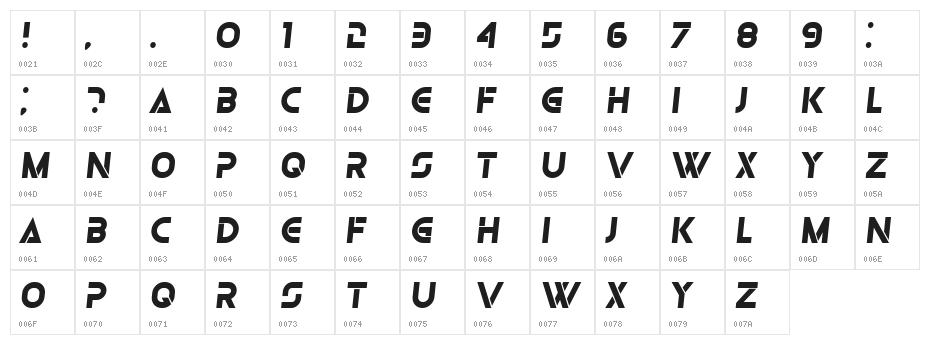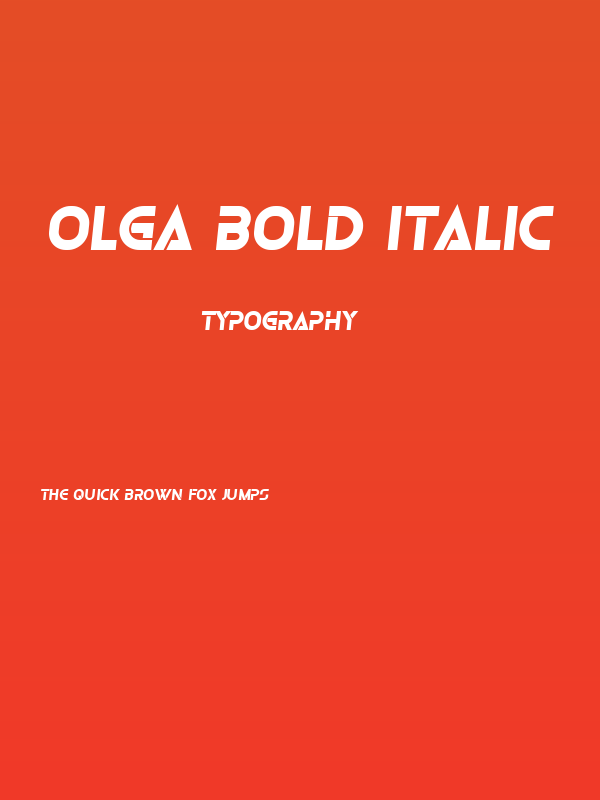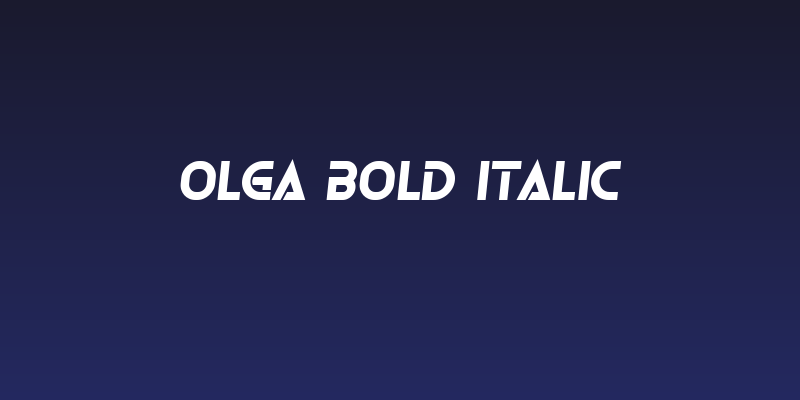
Olga Bold Italic Font
Olga Bold Italic Description
This typeface features a bold and italicized style, characterized by its strong geometric shapes and dynamic slant. The letters are crafted with a modern aesthetic, showcasing sharp angles and clean lines that convey a sense of movement and energy. The uppercase and lowercase letters maintain a consistent style, with a slight forward tilt that enhances readability while adding a touch of sophistication. The numerals are equally bold, with unique cuts and curves that align with the overall design. Special characters are included, maintaining the font's cohesive look. This typeface is ideal for making a bold statement in any design project.
| Proposed Projects | Ideal for branding, advertising, posters, and headlines where a strong, modern impact is desired. |